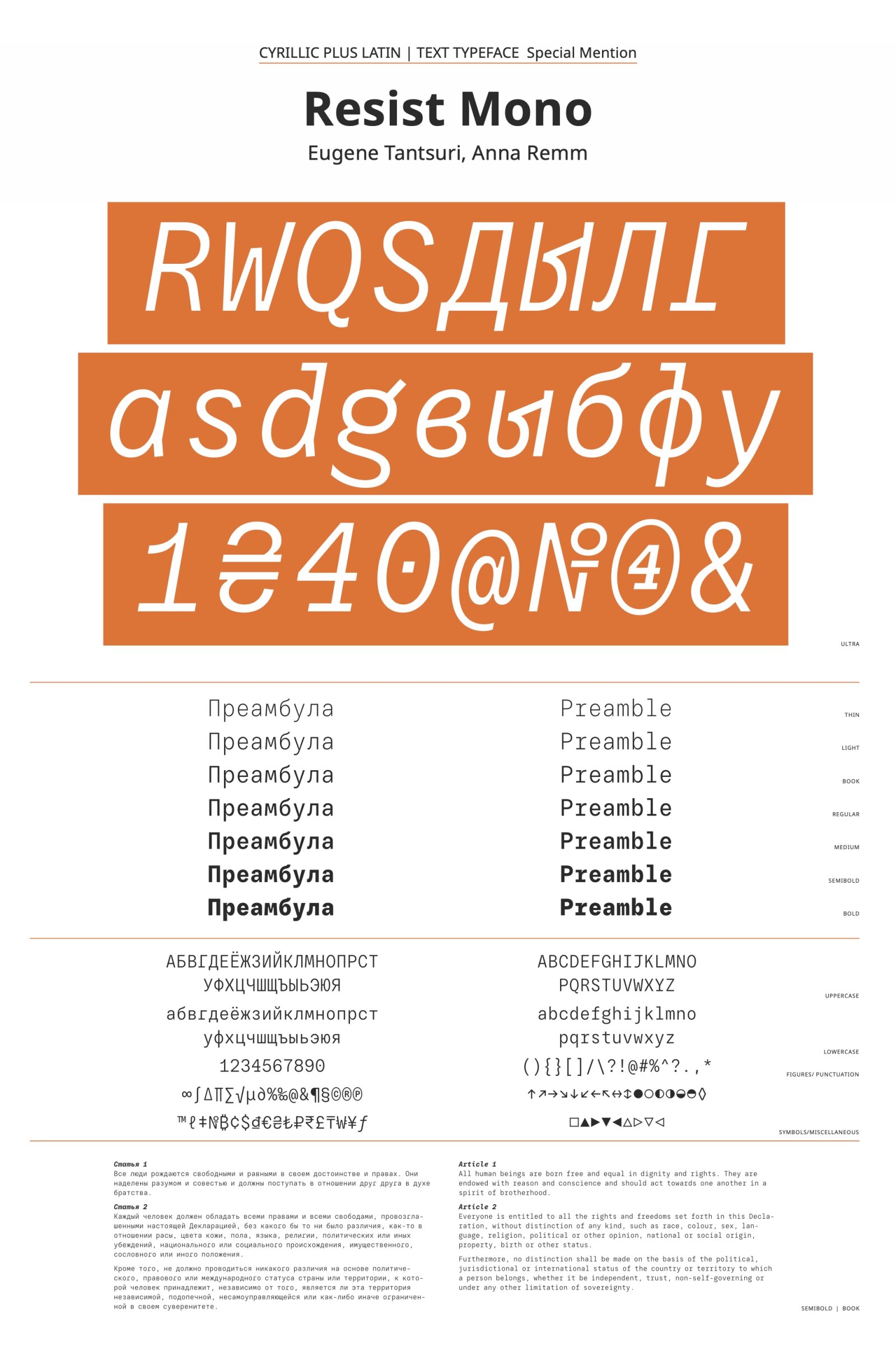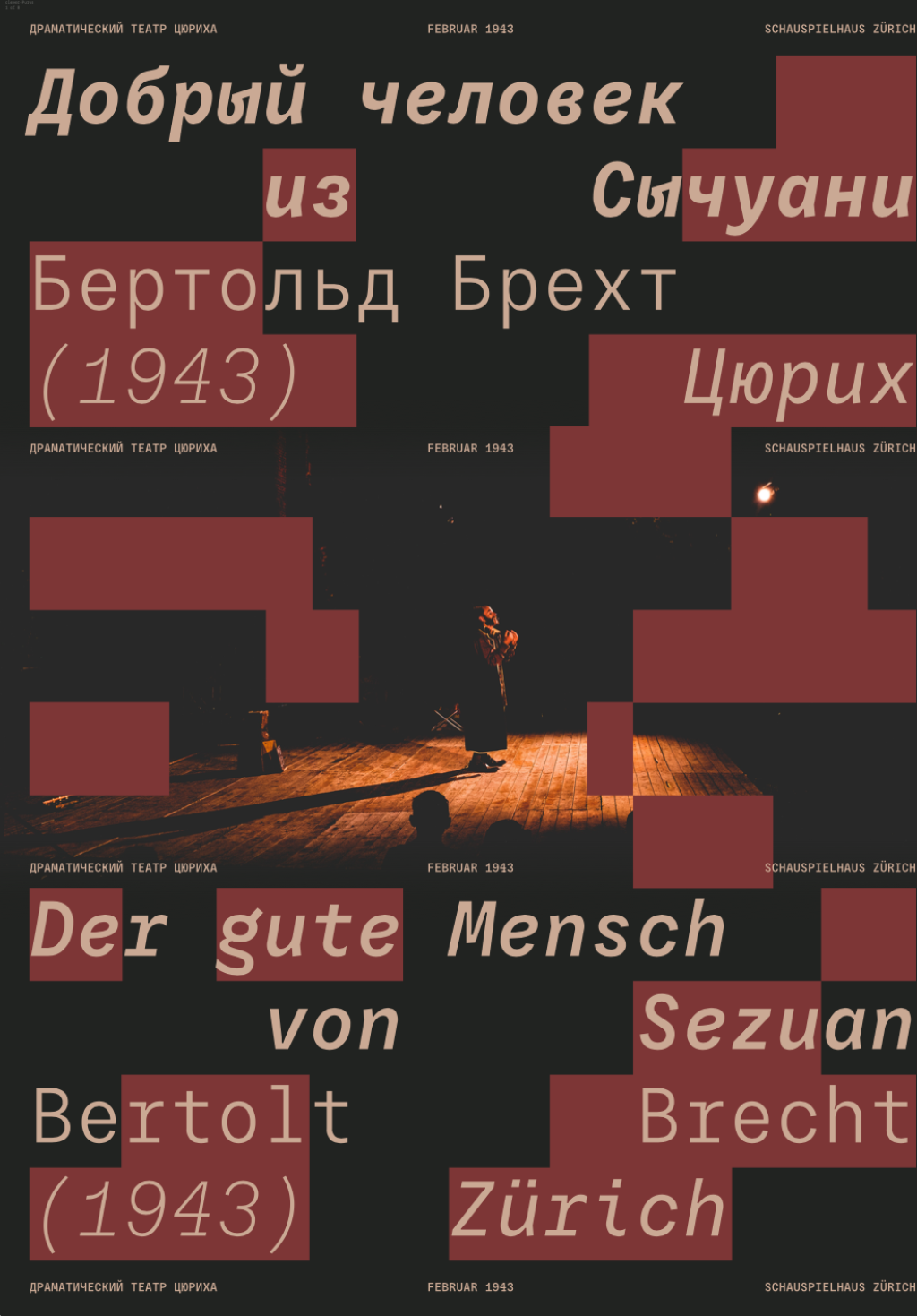
Resist Mono
by Eugene Tantsurin, Anna Remm
Cyrillic
B1 Text Typefaces with a latin complement
The monospaced Cyrillic is done with great attention to detail. The quirky shapes make the typeface suitable primarily for graphic design.